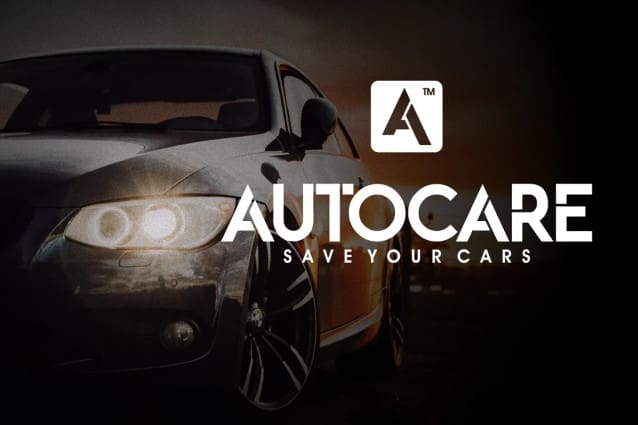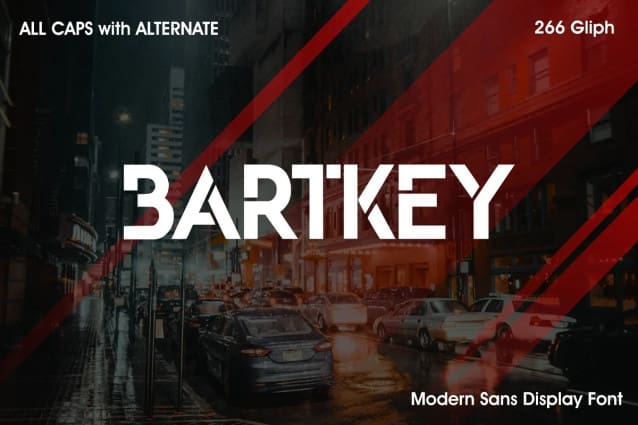
Bartkey Font
Bartkey Font is a bold and geometric looking display font. It can easily be matched to an incredibly large set of projects, so add it to your creative ideas and notice how it makes them stand out!